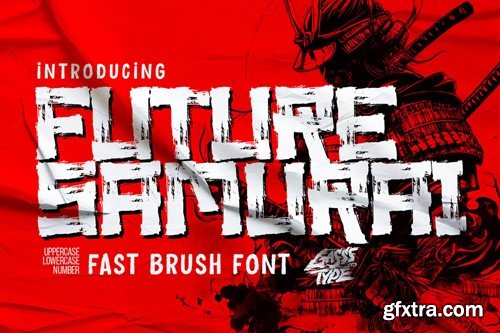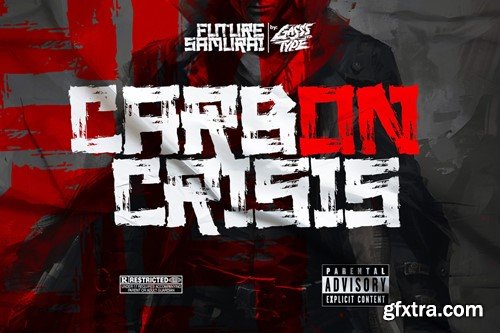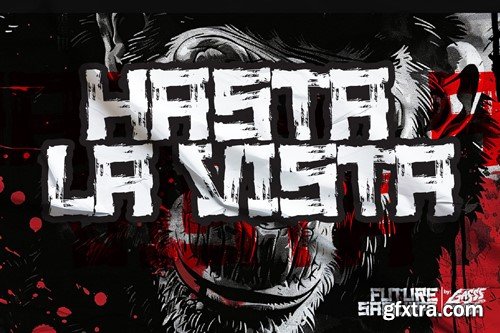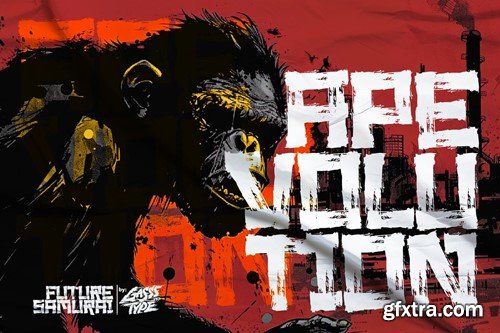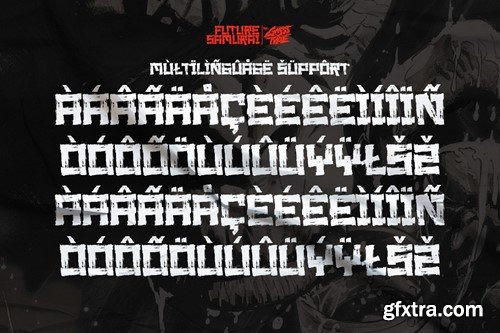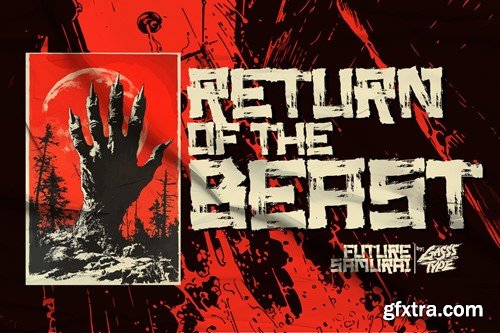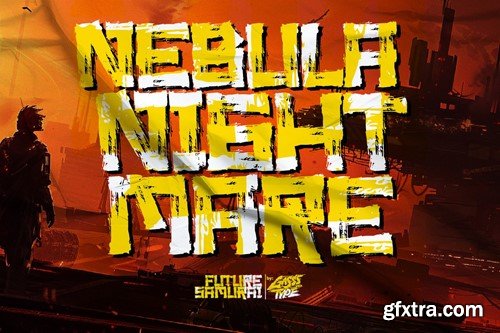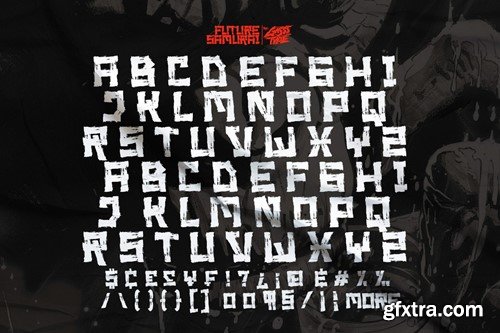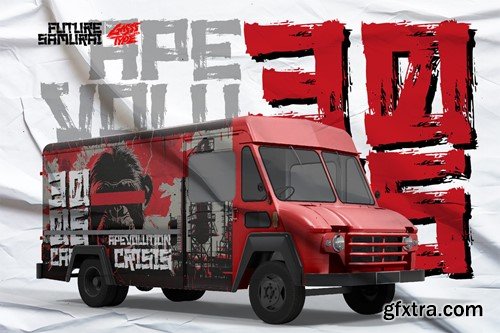
Unleash the spirit of a warrior in a world shattered by a future apocalypse. Future Samurai font is a bold, brush-stroke font that carves its own path through the chaos, blending the raw energy of traditional calligraphy with the cutting-edge aesthetic of a dystopian future. Each character in Future Samurai slashes across the screen with precision and power, evoking the swift and decisive strikes of a samurai's blade. Perfect for designs that demand attention, this font infuses your projects with a sense of urgency, rebellion, and untamed energy. Whether you're crafting posters, game titles, or branding for a dystopian saga, Future Samurai ensures your message cuts through the noise with sharp, striking impact. Embrace the future of typography and wield the power of the Future Samurai—where tradition meets the apocalypse. What’s Included : Accessible in the Adobe Illustrator, Adobe Photoshop, Adobe InDesign, even work on Microsoft Word. PUA Encoded Characters – Fully accessible without additional design software. Fonts include multilingual support Image used : All photographs/pictures/vector used in the preview are not included, they are intended for illustration purpose only. Cheers! Thank You